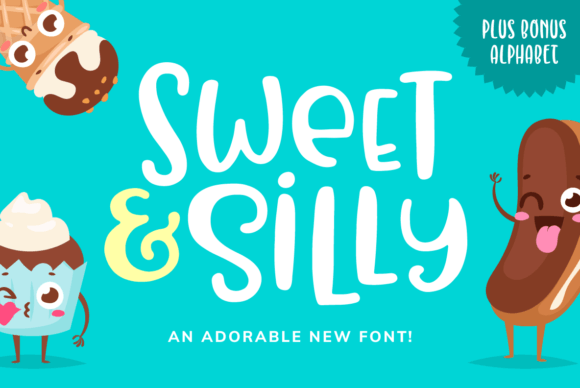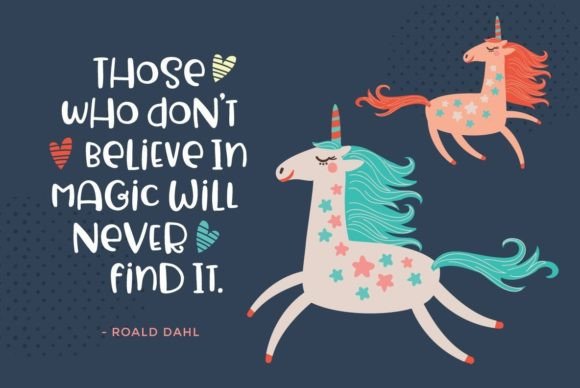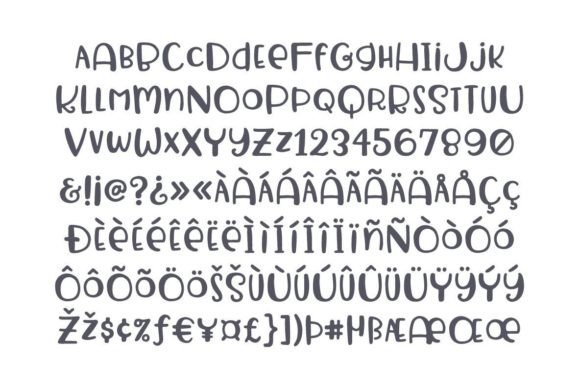
Sweet & Silly! An adorable font that will bring a smile to your face every time you use it. Its cute, curly style is perfect for a children’s book or baby shower invitation. Included is a bonus exclusive alphabet (english letters only), just for fun!